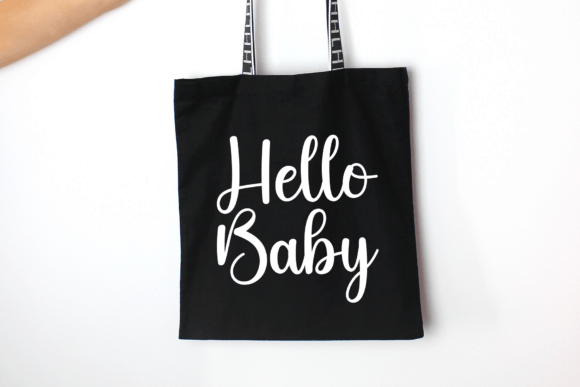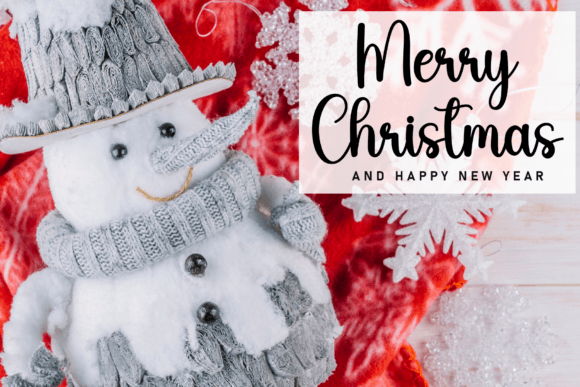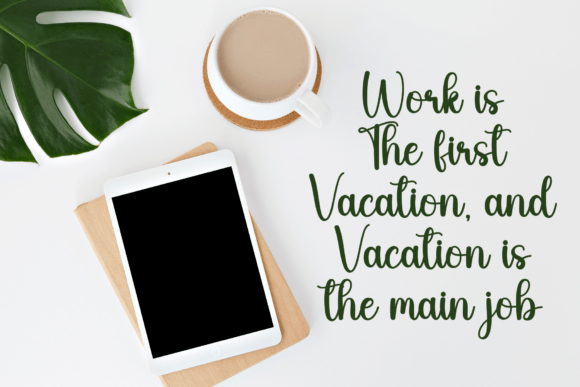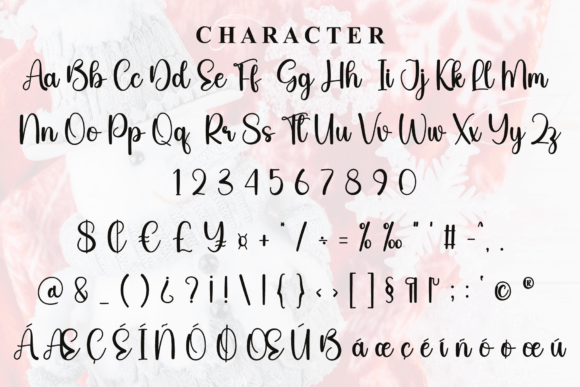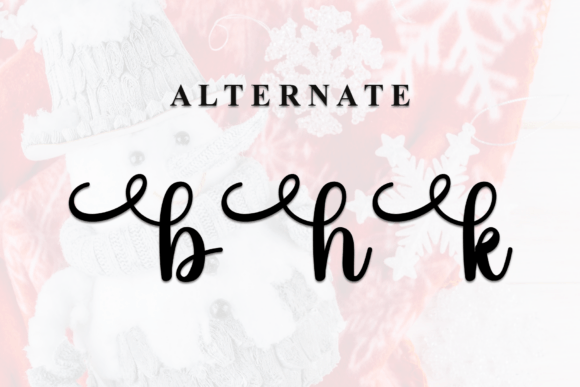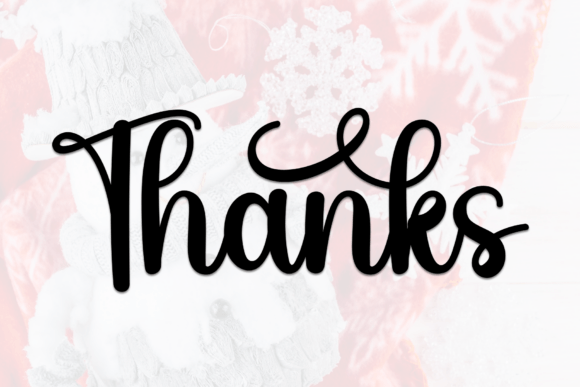
Introducing Blanket Snowman Font: Add a Playful Touch to Your Designs
Are you looking for a font that can add a fun and energetic feel to your designs? Look no further than the Blanket Snowman Font. This playful script font is perfect for making your text stand out with its casual, sporty vibe. In this article, we’ll take a closer look at the Blanket Snowman Font, its features, and how you can use it to elevate your designs.
What is Blanket Snowman Font?
Blanket Snowman Font is a playful script font that looks like it was drawn with a bold marker. Its casual, sporty vibe makes it perfect for designs that require a fun and energetic feel. The font has a unique, hand-drawn look that sets it apart from other fonts. Its bold and playful strokes make it ideal for headlines, titles, and any other text that needs to stand out.
Key Features of Blanket Snowman Font
- Playful Script Font: Blanket Snowman Font is a script font that has a playful and energetic feel to it. It’s perfect for designs that require a fun and casual touch.
- Bold Marker Look: The font looks like it was drawn with a bold marker, giving it a unique and hand-drawn look.
- Casual, Sporty Vibe: The font has a casual, sporty vibe that makes it perfect for designs that require a fun and energetic feel.
- Easy to Read: Despite its playful look, the Blanket Snowman Font is easy to read, making it perfect for use in a variety of designs.
Uses of Blanket Snowman Font
Blanket Snowman Font is a versatile font that can be used in a variety of designs. Here are some of the ways you can use it:
- Headlines and Titles: The font’s bold and playful strokes make it perfect for headlines and titles.
- Signs and Posters: The font’s casual, sporty vibe makes it perfect for signs and posters that require a fun and energetic feel.
- Branding and Packaging: The font’s unique look makes it perfect for branding and packaging designs that require a playful touch.
- Crafting and DIY Projects: The font’s playful look makes it perfect for crafting and DIY projects, such as handmade cards and gift tags.
Tips for Using Blanket Snowman Font
Here are some tips for using Blanket Snowman Font in your designs:
- Use it for Headlines and Titles: The font’s bold and playful strokes make it perfect for headlines and titles.
- Pair it with Other Fonts: The font can be paired with other fonts to create a unique and interesting look.
- Use it in Color: The font’s playful look makes it perfect for use in color. Try using it in bright, bold colors to add a fun and energetic feel to your designs.
- Experiment with Different Sizes: The font’s bold and playful strokes make it perfect for use in a variety of sizes. Experiment with different sizes to find the one that works best for your design.
Blanket Snowman Font is a playful script font that can add a fun and energetic feel to your designs. Its casual, sporty vibe makes it perfect for designs that require a playful touch. With its bold and playful strokes, it’s ideal for headlines, titles, and any other text that needs to stand out. Whether you’re a designer or a crafter, the Blanket Snowman Font is a great addition to your font collection.